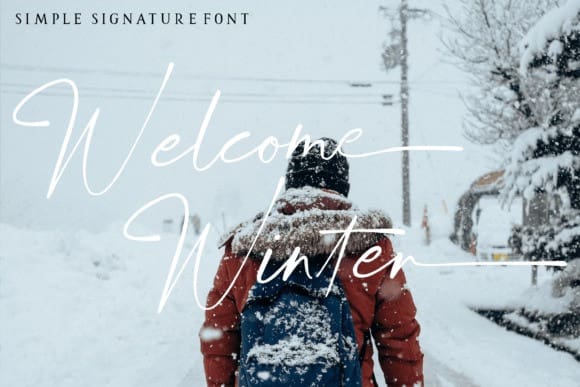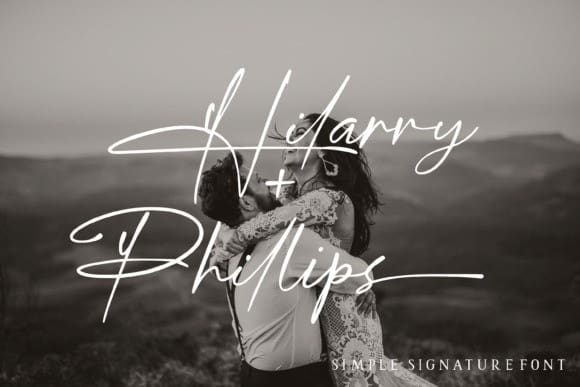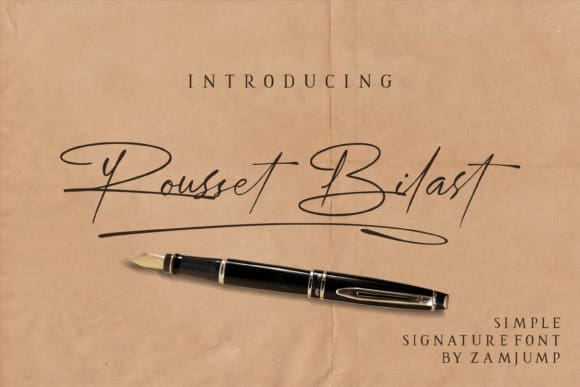
Rousset Bilast Font
Rousset Bilast Font, is a handwritten signature font with a calligraphy flair, ideal for creating handwritten-style logos, wedding stationery, photographer watermarks logos, modern websites, and more.
Rousset Bilas features heart connectors, handwritten ligatures, and end swashes for lowercase letters.